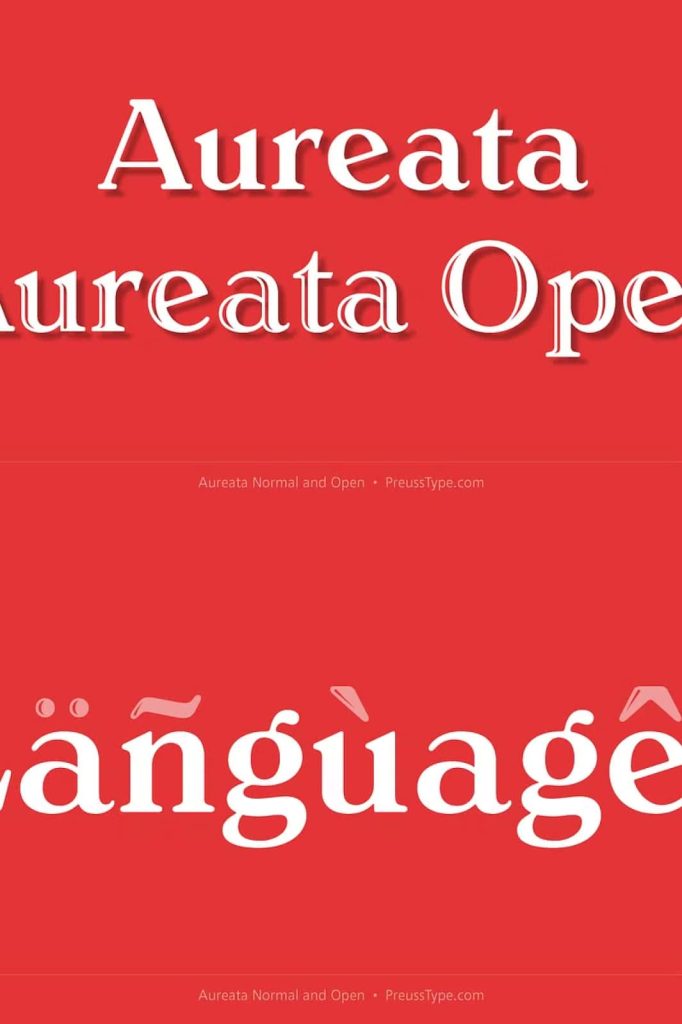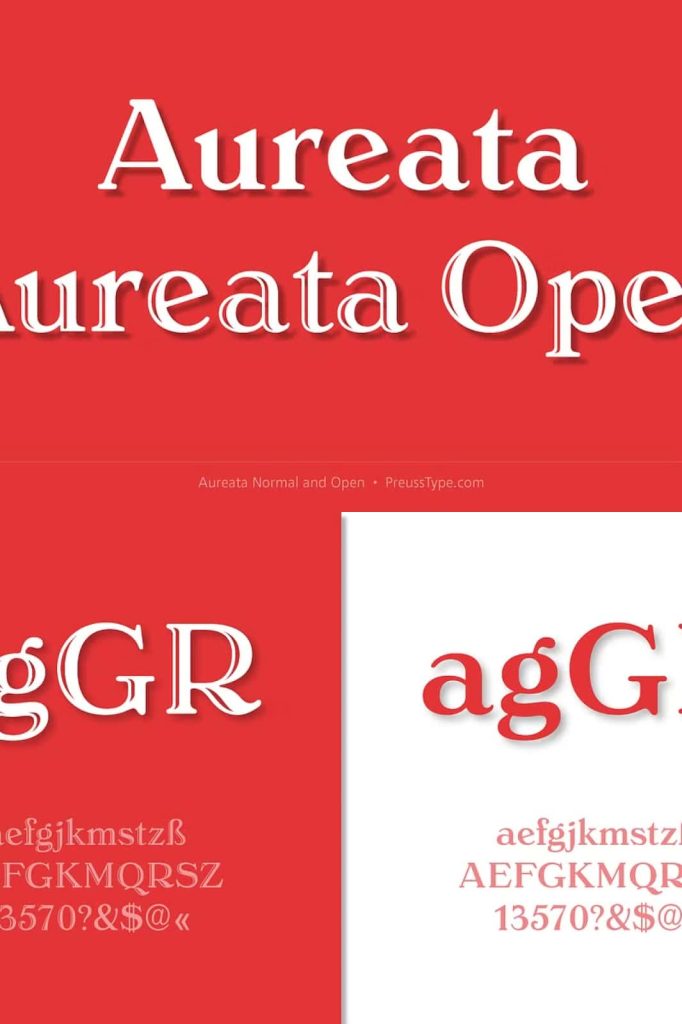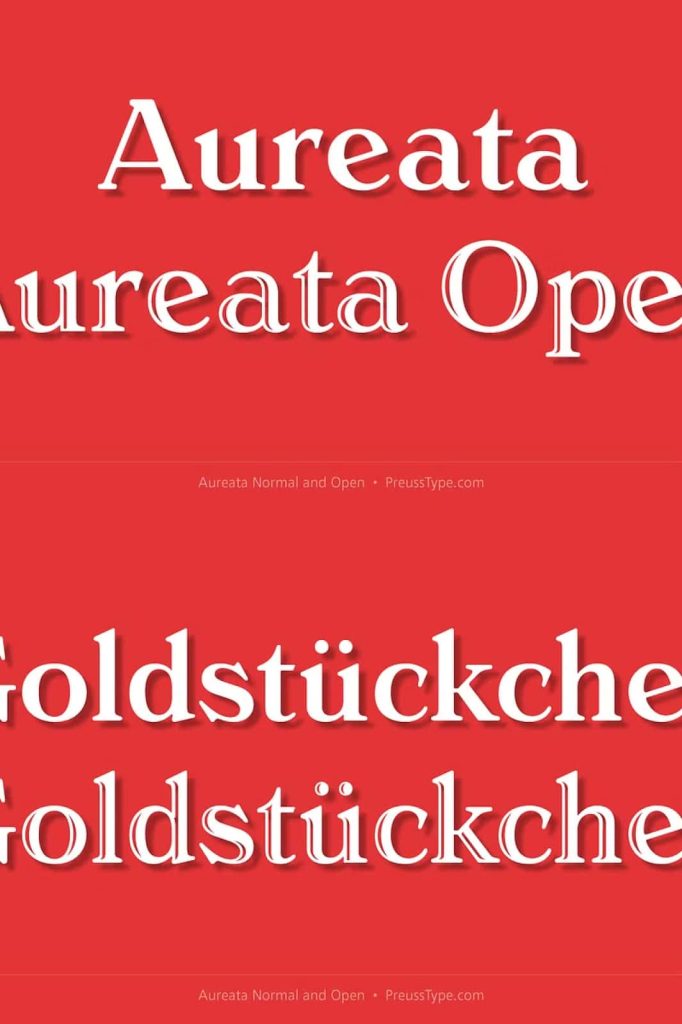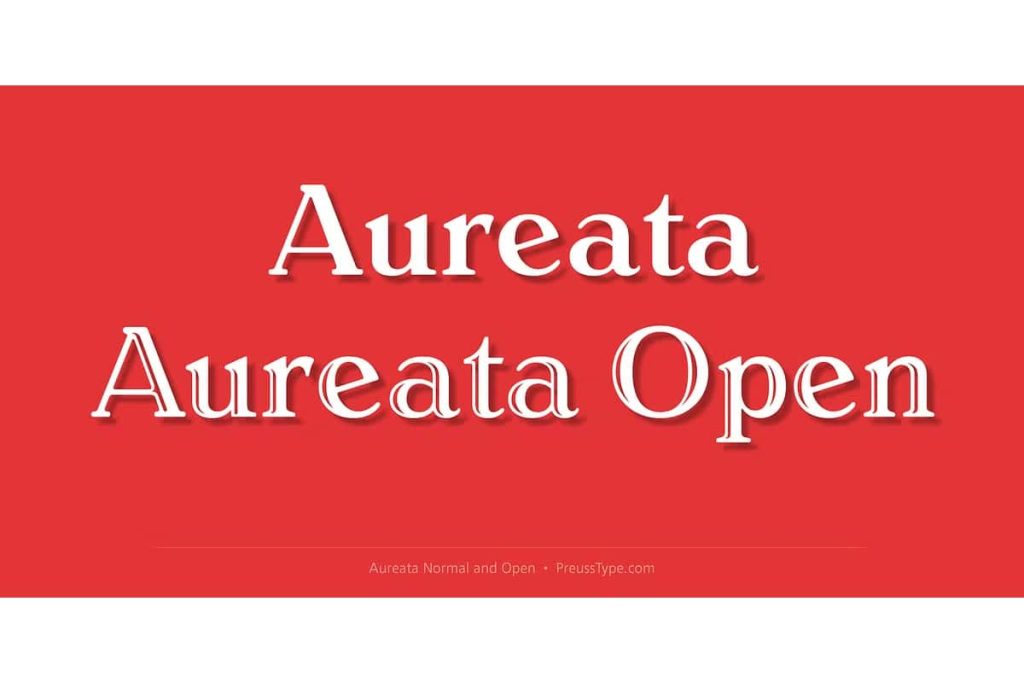
One of the facade of a furniture shop in Munich you can discover the lettering of the name in golden letters. This one convinced us because of the simple elegance Art Deco. These letters on the facade are in any case the character set, which forms the basis of this document. The missing (especially the lowercase letters and the numbers) were modeled.